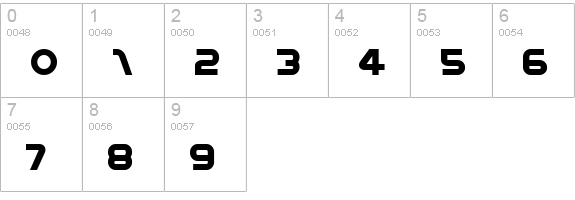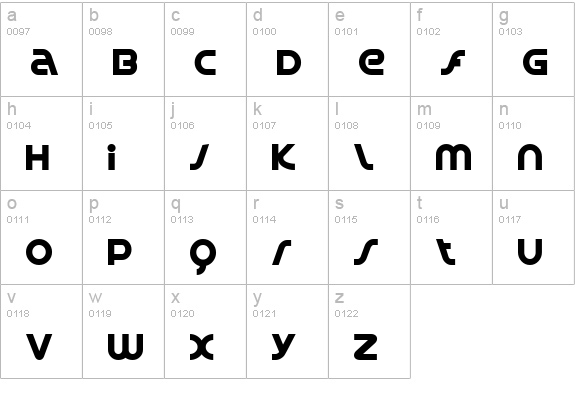
Introducing Spin Cycle font, a captivating typeface that flawlessly merges the essence of modernity and elegance. With its gracefully curved letterforms and precise geometric angles, Spin Cycle captures attention and injects a sense of sophistication into any design project. This versatile font is ideal for a wide range of applications, such as branding, logos, headlines, and more. Its clean lines and balanced proportions make it easily legible at any size, ensuring maximum impact and readability across various mediums. But what sets Spin Cycle apart is not just its aesthetic appeal; it's also the fact that it is available for free. Yes, you read that right! This remarkable font can be freely downloaded at FontsMarket.com, making it accessible to designers and enthusiasts alike. Whether you're a professional seeking to elevate your design work or an aspiring creator looking to experiment with typography, Spin Cycle font is the perfect choice. Its timeless beauty and effortless versatility make it a valuable asset in any designer's toolkit. So why wait? Embrace the beauty of Spin Cycle font and unleash your creativity today. Download it for free at FontsMarket.com and experience the transformative power of this extraordinary typeface.